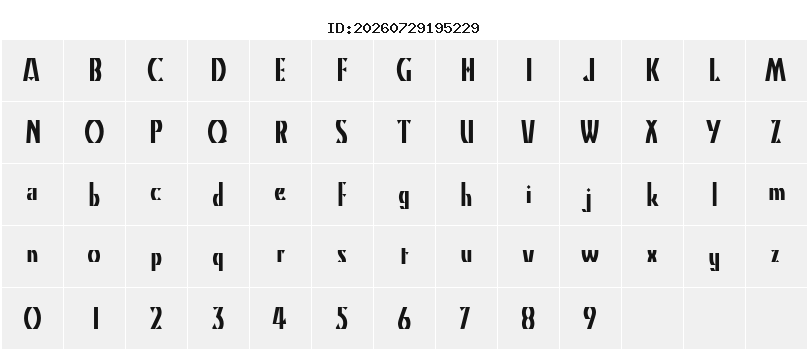
Kino MT Preview
• Font Name: Kino MT
• Font ID: Kino MT
• Full Font Name: Kino MT
• PostScript Name: KinoMT
About Kino MT.ttf
Kino MT.ttf is a modern, elegant sans-serif font designed for ultimate readability and visual harmony. Perfect for branding, headlines, web design, and print materials.